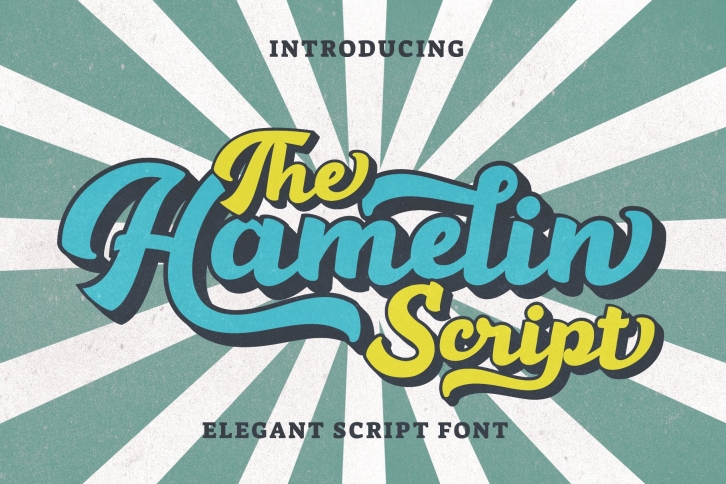
Hamelin Script Inspired by Retro style and combination with Hand Lettering style. Every single letters have been carefully crafted to make your text looks beautiful. I hope this can make inspire you from your work. Font is PUA encoded so you can access extras from character map in most design software.